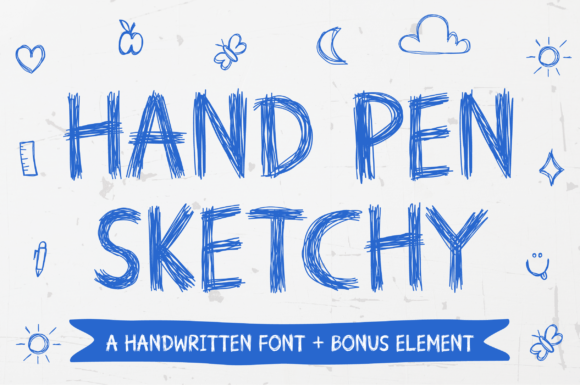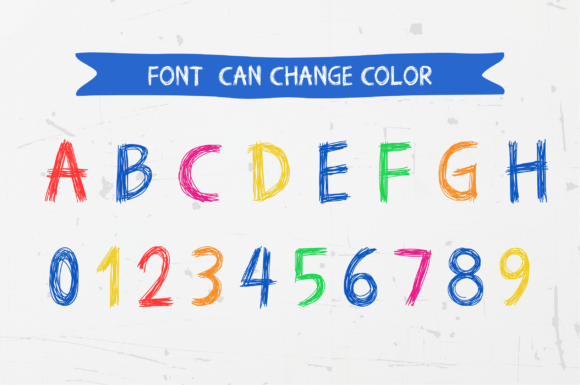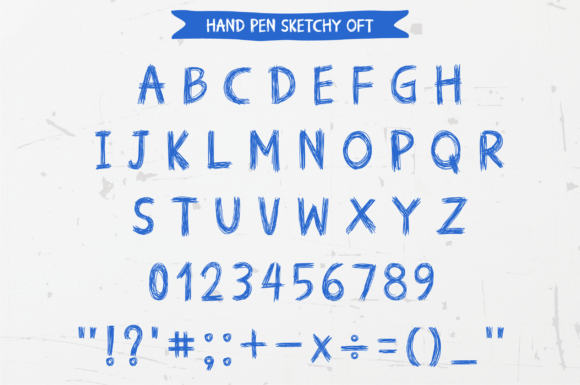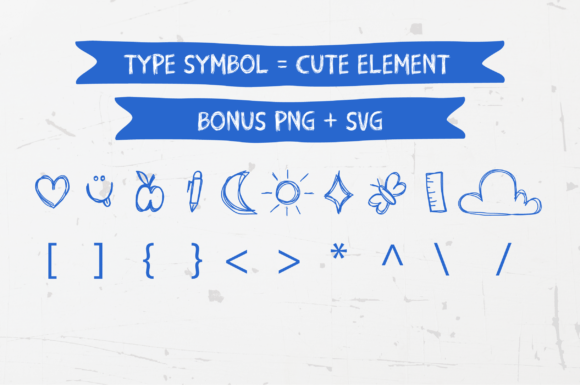
Hand Pen Sketchy Font
About the Hand Pen Sketchy Font
Crafted with precision, the Hand Pen Sketchy Font is ready to bring your ideas to life. “Hand Pen Sketchy” is a playful kids’ doodle font with a sketchy style, perfect for bringing out your inner child. You can easily change the colors as you type, adding a fun touch to your projects. The font includes cute symbols to enhance your designs. It also comes with bonus PNG and SVG elements—don’t forget to download these extra files! Give it a try and let your creativity shine!
This font shines in projects geared towards children, youth-oriented brands, and playful designs. Ideal applications include children’s book illustrations, playful logos, greeting cards, and packaging for toys or sweets. Avoid using it for large blocks of text or body copy; its informal nature makes it unsuitable for readability in extended paragraphs or UI elements.
“Hand Pen Sketchy” pairs well with clean sans-serif fonts like Open Sans or Lato for a balanced contrast, or with a more geometric sans-serif for a modern feel. For a warmer pairing, consider a rounded serif like Playfair Display. Avoid pairing it with overly formal or elegant scripts, as this could clash with its playful nature.
The font’s overall personality is lighthearted and informal, conveying a sense of childlike fun and creativity. Its sketchy style adds a hand-drawn feel, making it perfect for projects that need a touch of whimsy.
Hand Pen Sketchy Font Usage Examples
Hand Pen Sketchy Font Example